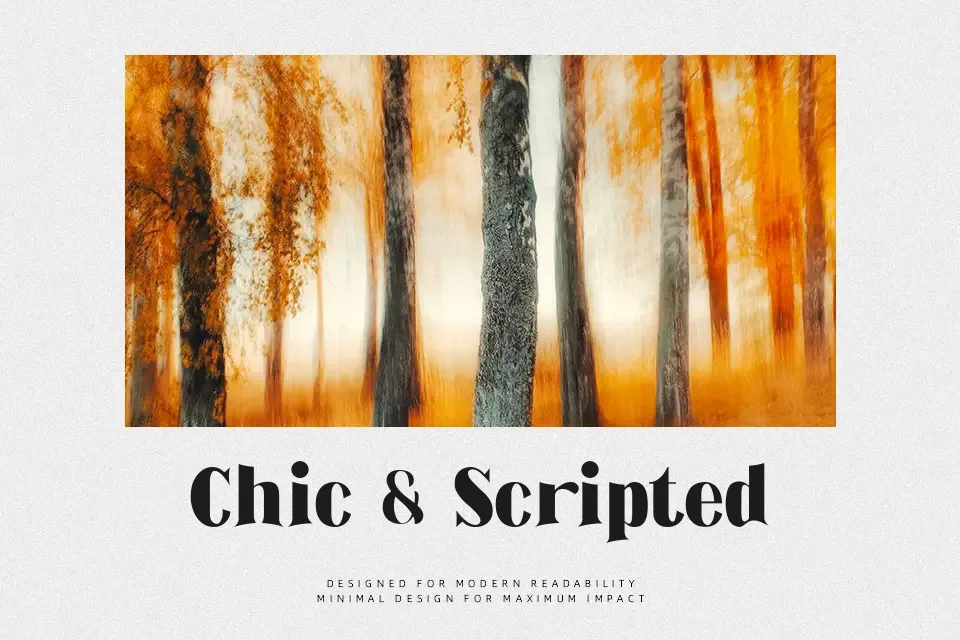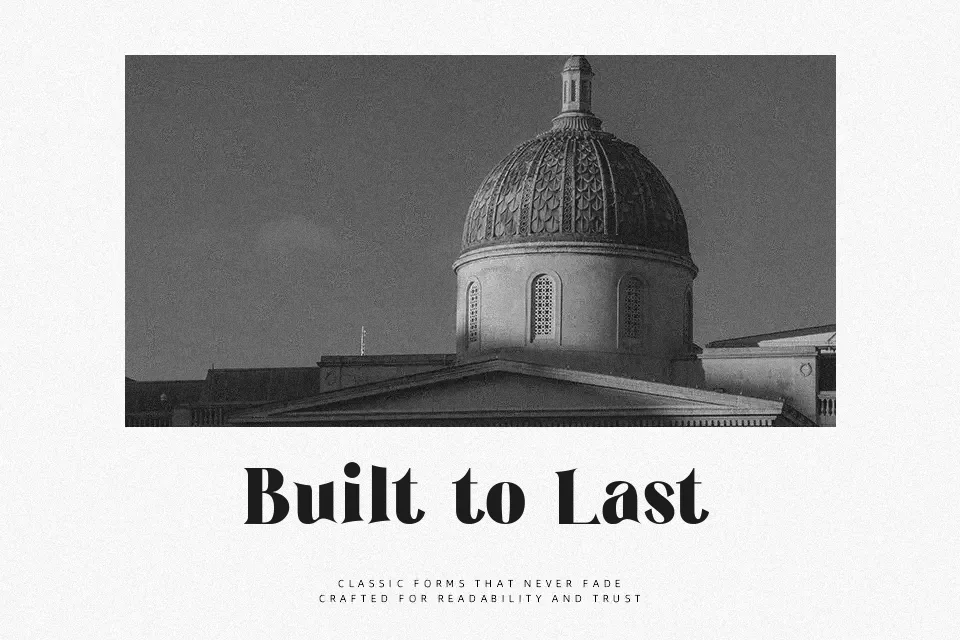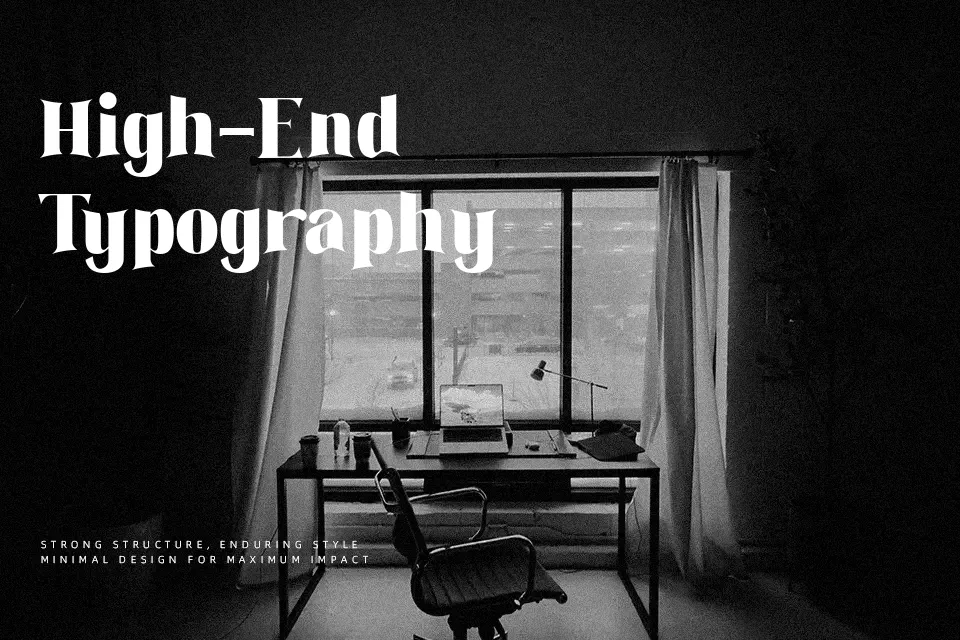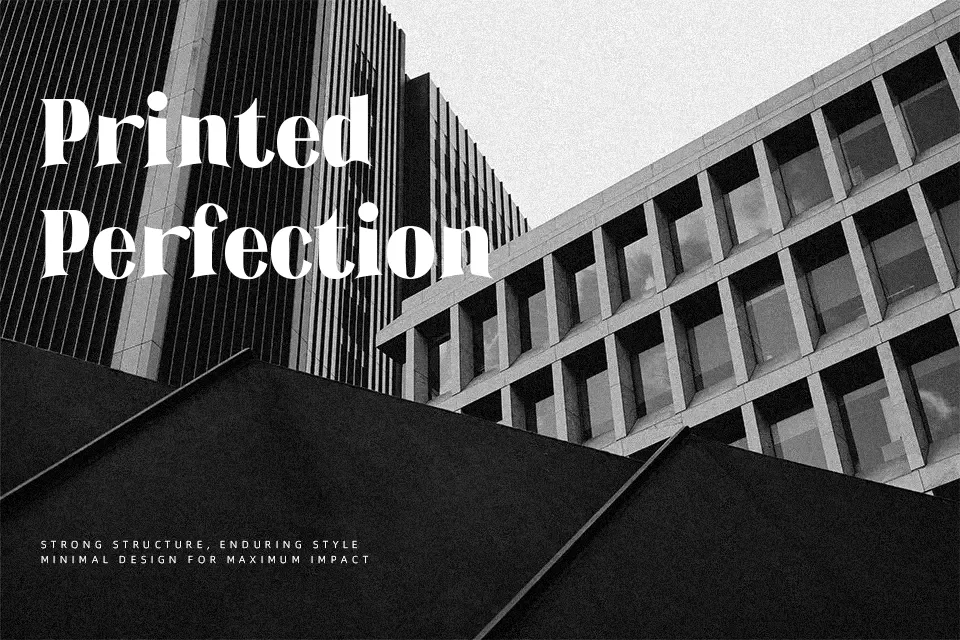
The Barista Font
The Barista Font establishes a commanding presence in display layouts with its high stroke contrast, pronounced bracketed serifs, and curved ball terminals. Character spacing remains moderately compact, preserving steady horizontal rhythm in short titles while highlighting the graceful transitions between thick stems and slender hairlines. Proportions lean slightly condensed, maximizing layout efficiency across poster titles and hospitality signage. However, the delicate hairlines and intricate terminal details tend to blur at caption sizes, making the typeface poorly suited for dense body text. It performs with exceptional distinction when set in prominent, large-scale headings.
Best For: coffee shop menu headers, vintage product packaging, boutique apparel branding, restaurant signage
Not Ideal For: continuous body text, mobile interface labels, legal documents, dense editorial layouts
Perfect for headline, logo, and packaging, with a elegant and display style.